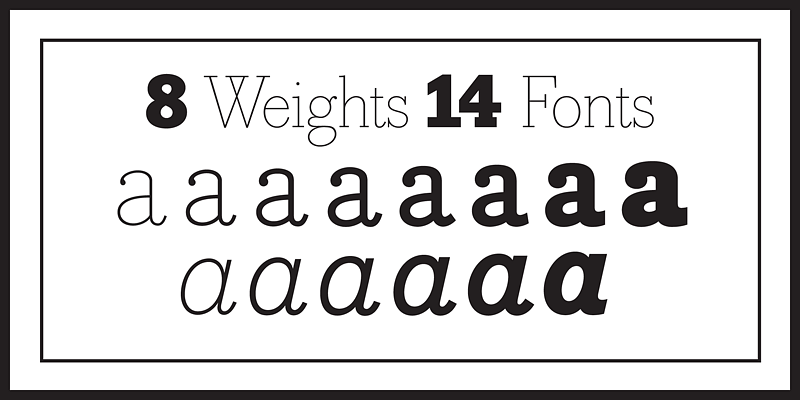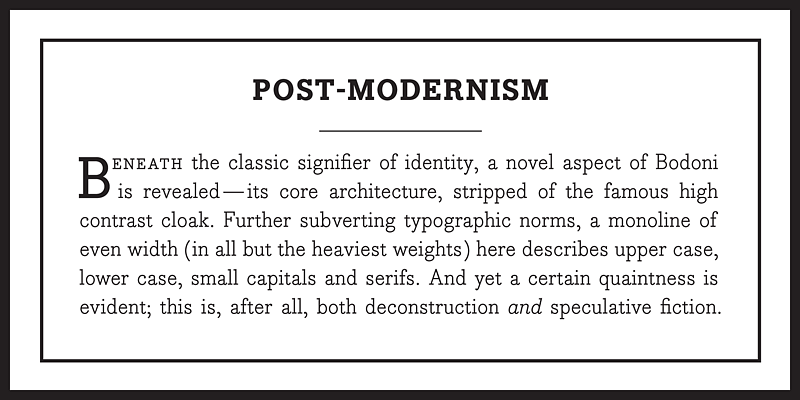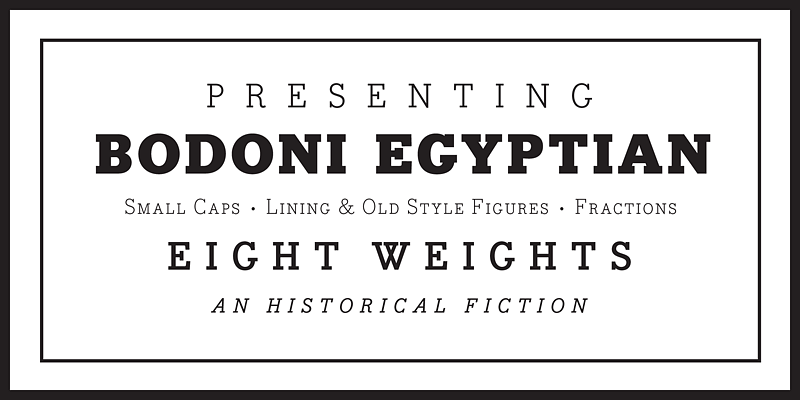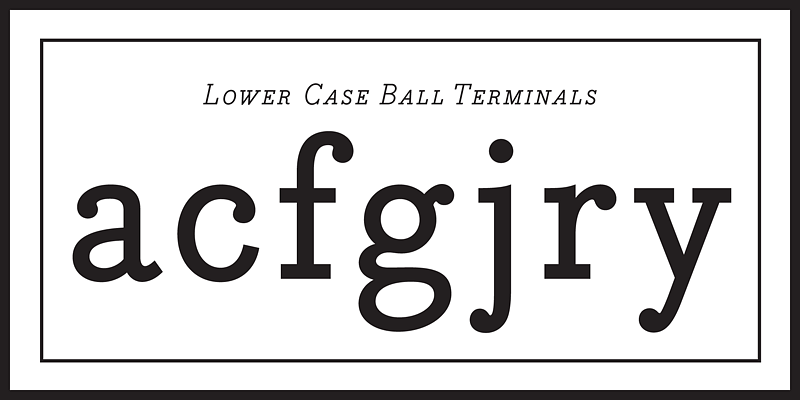
Beneath the dominant signifier of identity, a surprising dimension of Bodoni is revealed—its core architecture, stripped of the famous high contrast cloak. Further subverting typographic norms, a monoline of even width (in all but the heaviest weights) here describes capitals, lower case, small caps and serifs. And yet a certain quaintness is evident; Bodoni Egyptian® is, after all, both deconstruction and historical fiction.